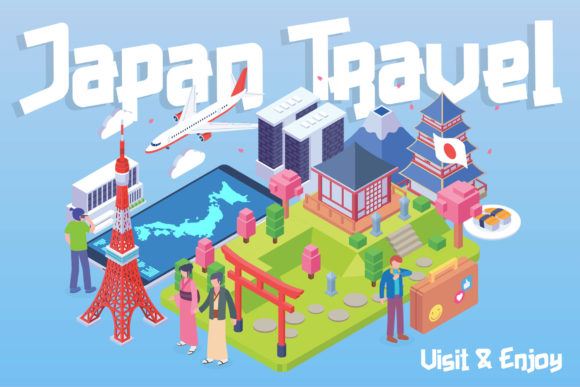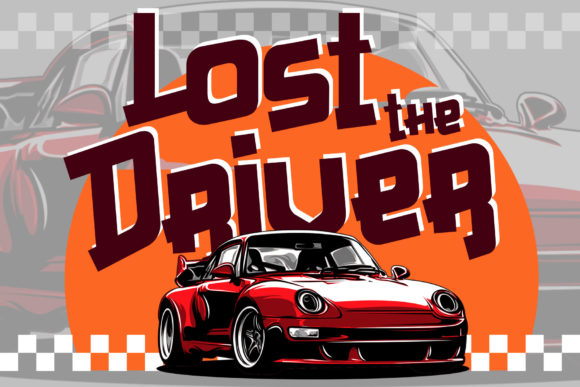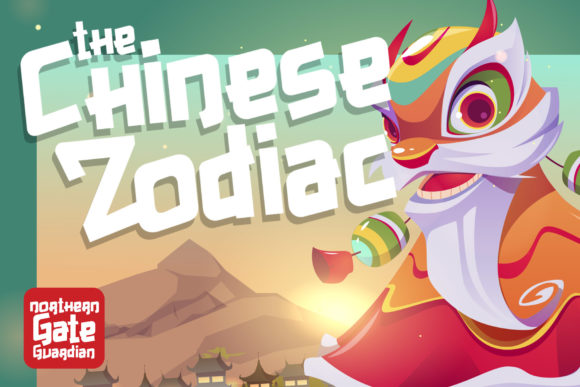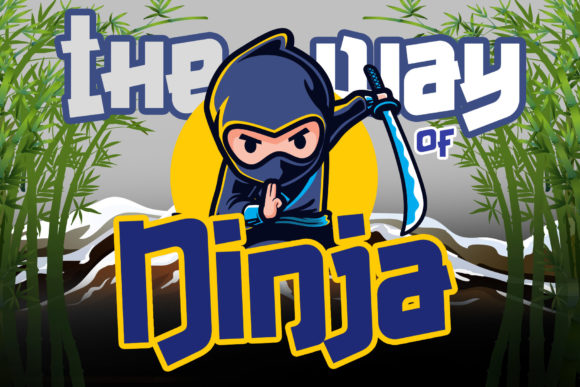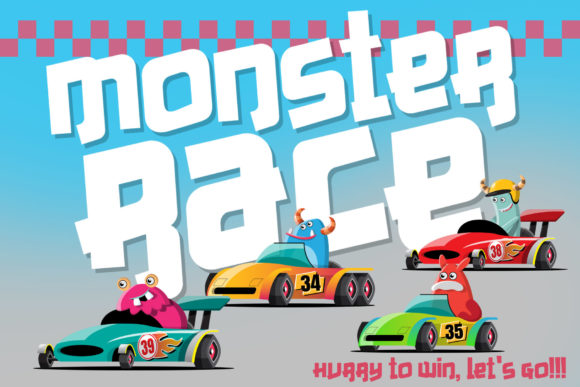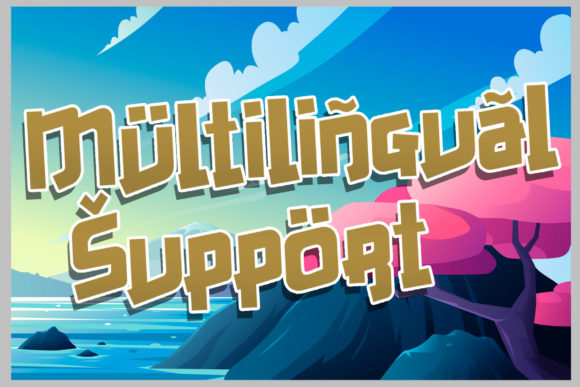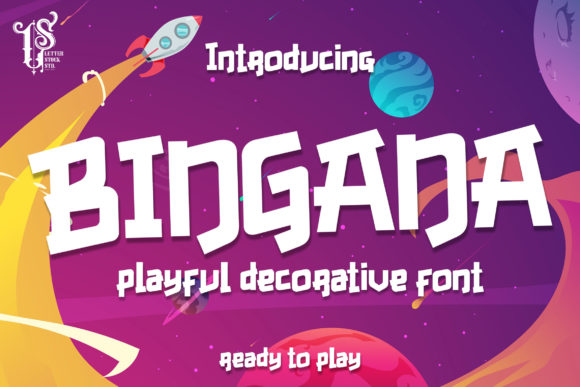
The Bingana Font: A Playful Powerhouse for Your Creative Projects
I’ll never forget the time I was working on a children’s party invitation design. I had the concept, the colors, and the graphics all nailed down, but something was missing. The font I was using just didn’t have the playful, whimsical vibe I was going for. That’s when I stumbled upon the Bingana font. It was like a breath of fresh air – the perfect blend of fun, boldness, and charm. In this article, I’ll share my experience with Bingana, its features, and how to make the most of it in your creative projects.
A First Impression: What Makes Bingana Special
Bingana is a display font designed with children’s movie poster designs in mind. Crafted by hand, it brings a natural, effortless feel to your designs. The playful characters and bold appearance make it an excellent choice for branding, titles, and other creative ideas that need a pop of personality.
Here’s what I love about Bingana:
- ✨ Playful and fun: Bingana’s unique design makes it perfect for projects that require a lighthearted touch.
- ✅ Highly versatile: It can be used for titles, branding, posters, and more.
- 💡 Instant recognition: The bold appearance ensures your text won’t go unnoticed.
And here are a few quirks to consider:
- 🤔 Legibility at small sizes: While it’s stunning at larger sizes, it can get a bit tricky to read at smaller sizes or in longer texts.
- ⚠️ Limited use in formal designs: Its playful nature might not be suitable for very formal or professional projects.
Bingana was crafted with the intention of capturing the whimsical feel of children’s movie posters. The designer aimed to create a font that felt hand-crafted and approachable, perfect for projects that require a dash of fun and personality. While the exact details of the designer’s process are not publicly known, it’s clear that Bingana was made with love and a deep understanding of what makes a design pop.
| Font Name | Bingana Font |
| Author | Gumacreative |
| What makes Bingana unique? | Bingana’s hand-crafted feel and playful characters make it stand out, especially for designs that need a fun and bold touch. |
| Is Bingana difficult to read at small sizes? | While it’s designed for display purposes, Bingana can be a bit challenging to read at very small sizes. It’s best used for titles and headings. |
Bingana is more than just a font – it’s a design statement. Its playful, bold, and charming nature makes it perfect for a wide range of creative projects. Whether you’re designing for fun or working on a client’s project, Bingana can add that extra oomph to make your design stand out. So go ahead, give Bingana a try, and see how it can transform your designs!